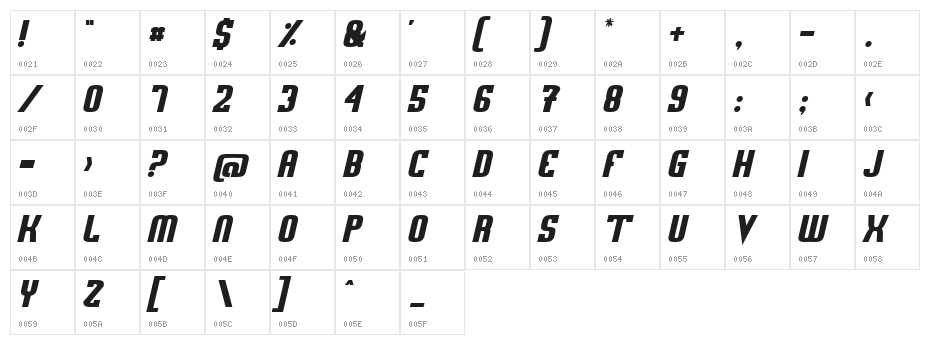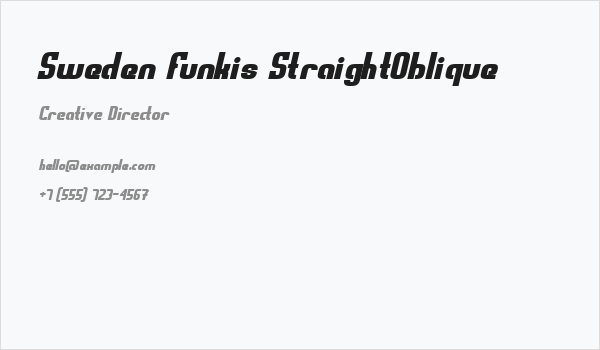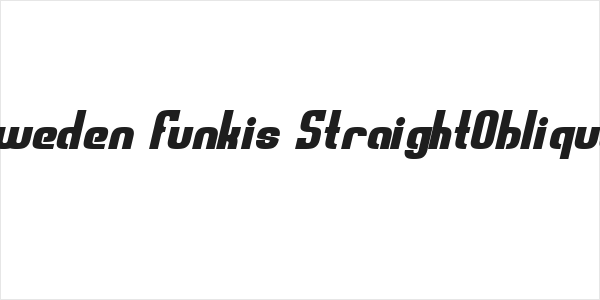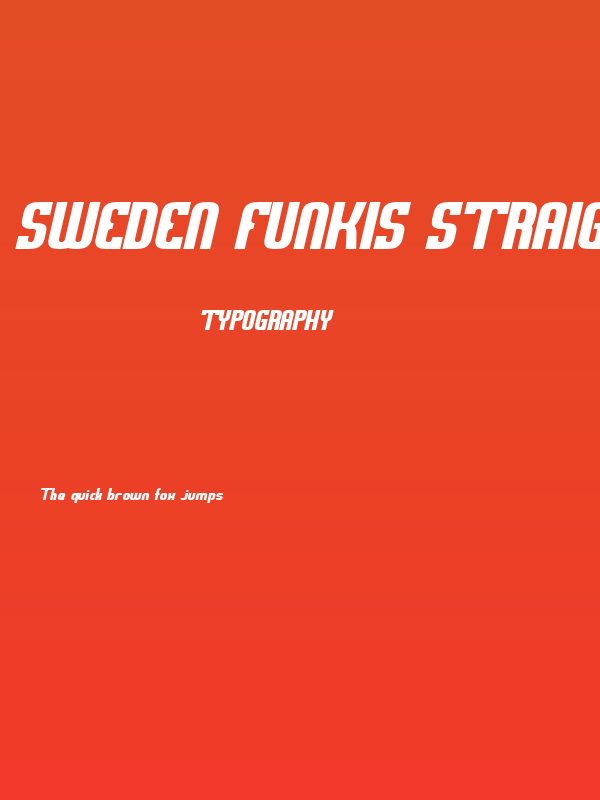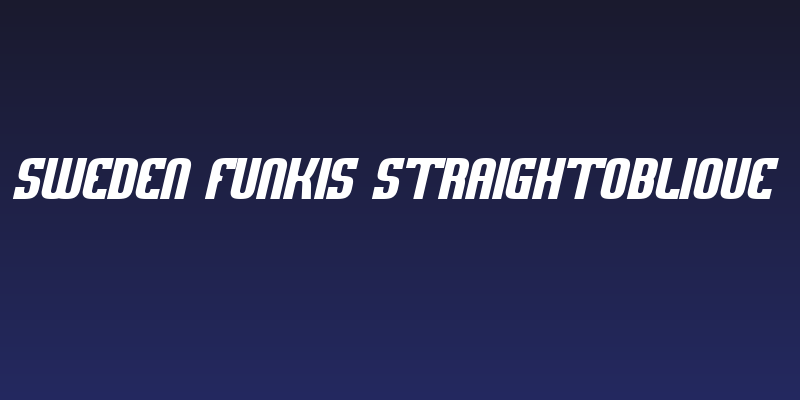
Sweden Funkis StraightOblique Font
Sweden Funkis StraightOblique Description
This font features a bold and dynamic style with a distinct oblique slant, giving it a sense of movement and energy. The characters are robust and slightly condensed, with a uniform stroke width that maintains consistency across all letters and numbers. The uppercase and lowercase letters are designed with a modern flair, while the numerals are clear and easily distinguishable. Special characters are included, maintaining the same bold and slanted aesthetic. This font is ideal for projects that require a strong visual impact and a contemporary look.
| Proposed Projects | Ideal for branding, advertising, posters, and headlines where a strong and modern impact is desired. |